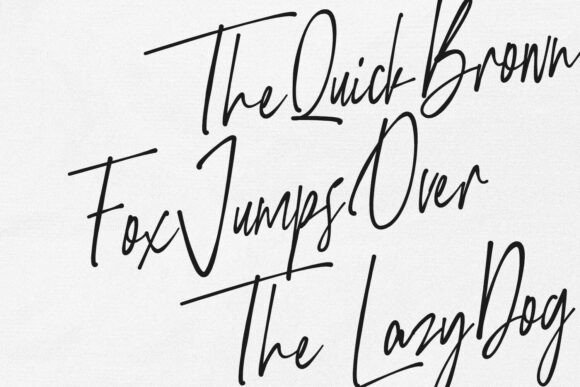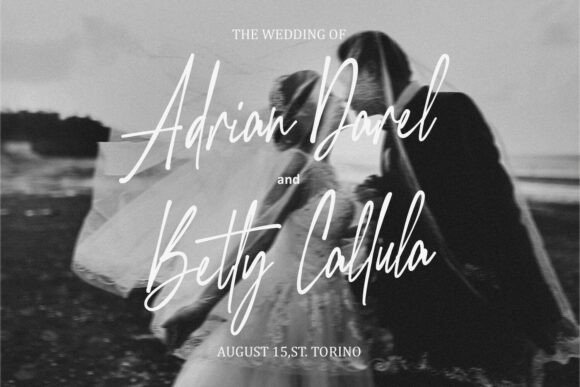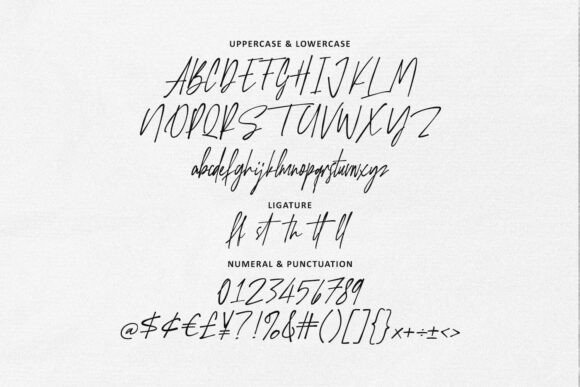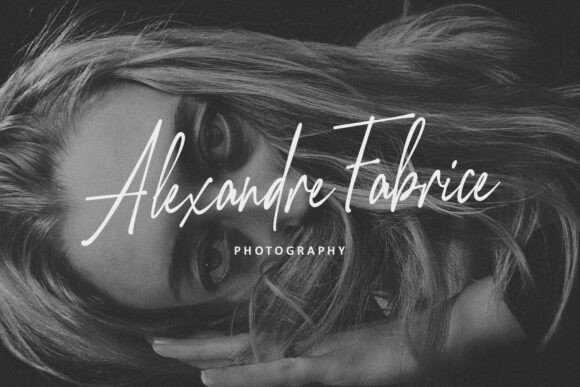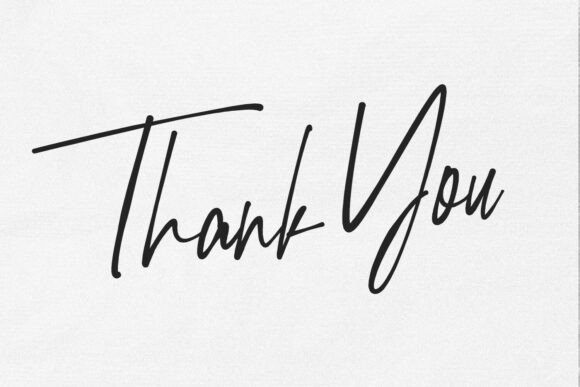
Introduction to Battosain Signature Font
Have you ever stared at a blank page, trying to come up with the perfect way to express your brand’s personality? The struggle is real, especially when you’re trying to create a memorable impression on your audience. As a designer, you know that the right font can make all the difference in setting the tone for your project. And that’s where the Battosain Signature Font comes in – a modern, handcrafted script font that’s designed to infuse your projects with a touch of personal elegance and effortless charm.
With its natural flow and organic rhythm, this casual signature font mimics the look and feel of authentic handwriting, creating a genuinely human connection with your audience. Whether you’re working on a creative project, designing a logo, or creating special announcements, the Battosain Signature Font is the perfect design resource to help you stand out from the crowd.
Key Features of Battosain Signature Font
- The Battosain Signature Font is a unique and high-quality design resource ideal for creative projects requiring a distinctive touch.
- The unique, handwritten style of the Battosain Signature Font makes it perfect for adding a personal touch to designs, from logos and branding materials to social media graphics and posters.
Honest Review: Battosain Signature Font
I recently came across the Battosain Signature Font, and I was excited to give it a try for my current design project. As a designer, I’m always on the lookout for high-quality fonts that can elevate my creative work.
Here are some pros and cons of the Battosain Signature Font that I’ve observed:
- ✨ High-quality design: The font looks professional and well-crafted, making it perfect for a variety of design projects.
- ⚠️ Limited character set: The font only includes a limited character set, which may not be suitable for projects that require a wide range of characters.
- ⚠️ No bold or italic styles: The font only comes in a regular style, which may not be ideal for projects that require emphasis or emphasis on certain text.
Overall, I’m impressed with the Battosain Signature Font, and I would recommend it to designers looking for a high-quality, free font for their creative projects. However, be aware of the limitations mentioned above to ensure it meets your project’s requirements.